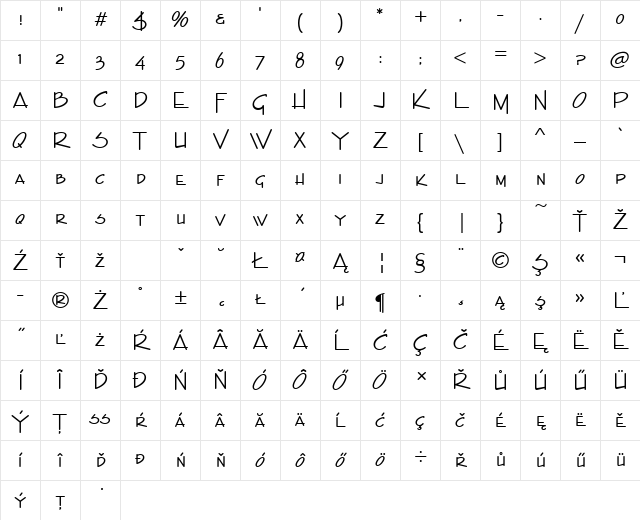
EnviroSCDEE Regular
Design Context for EnviroSCDEE
EnviroSCDEE is a composed and adaptable typeface that performs quietly and consistently across a wide range of design contexts.
Pro Tip: Use EnviroSCDEE in both headline and body roles to test its range before committing to a single application.